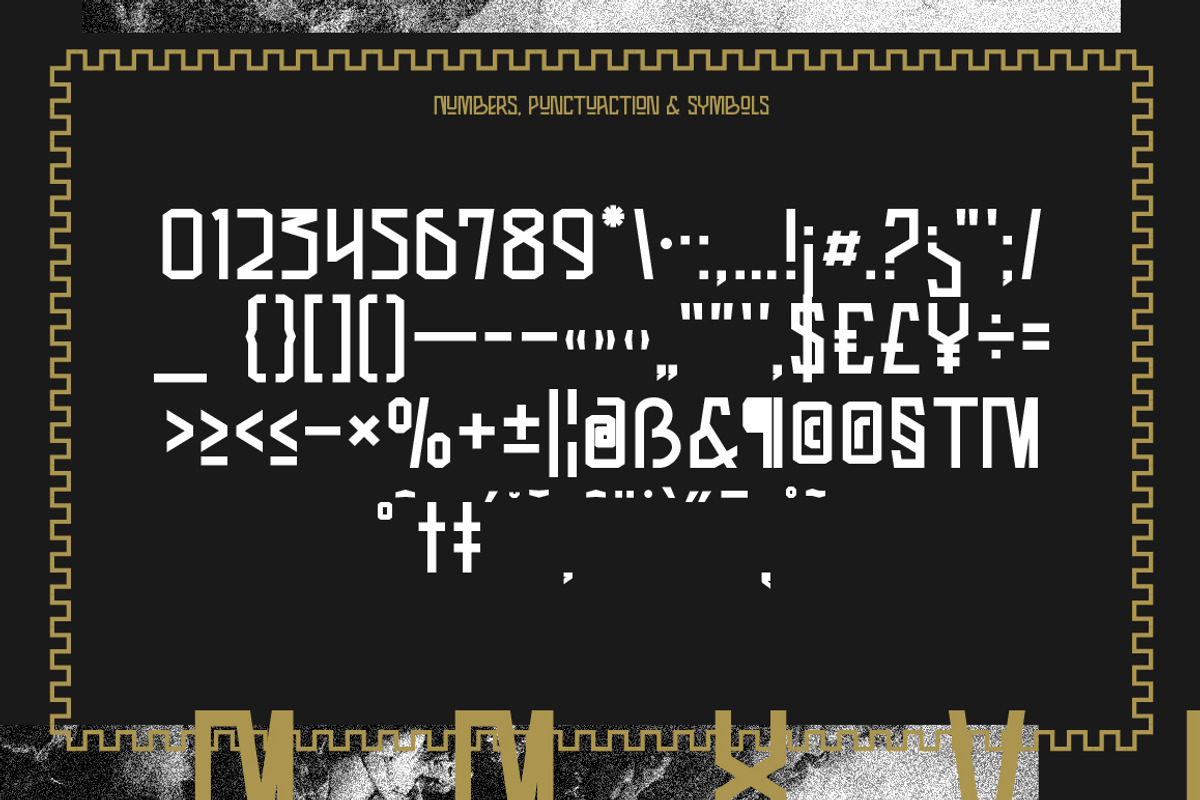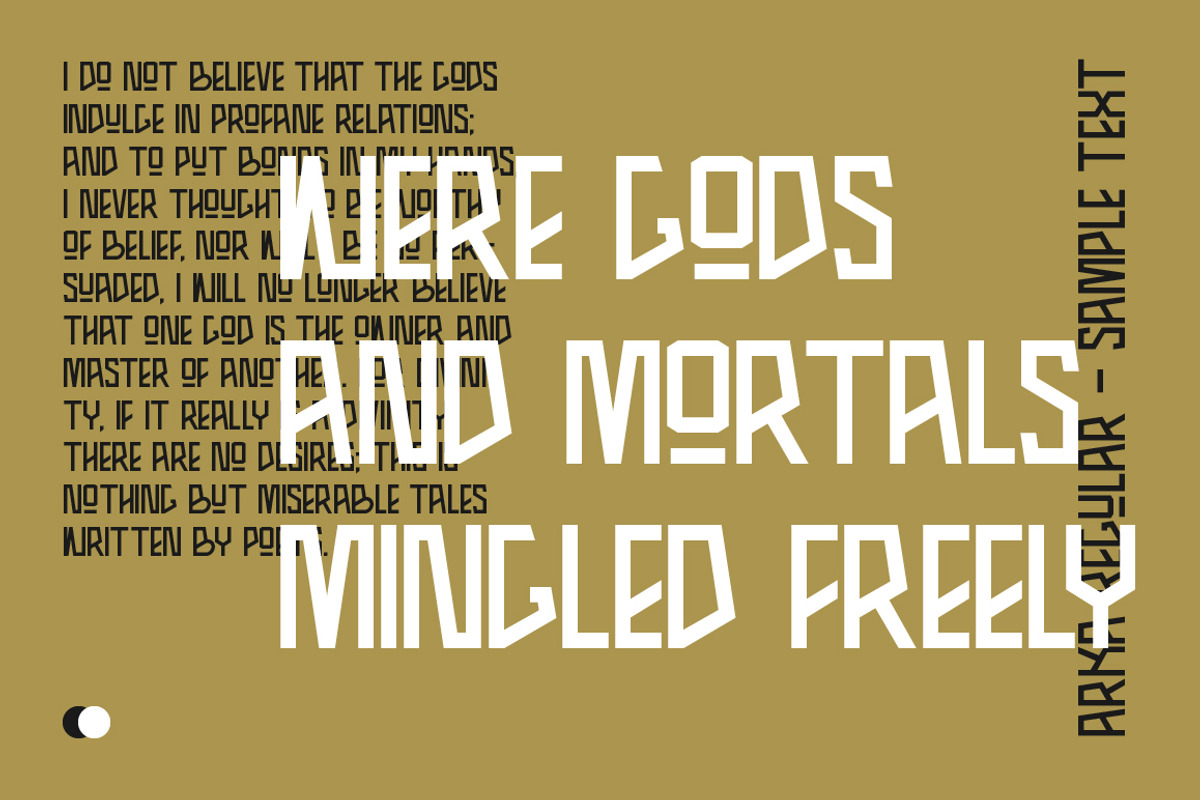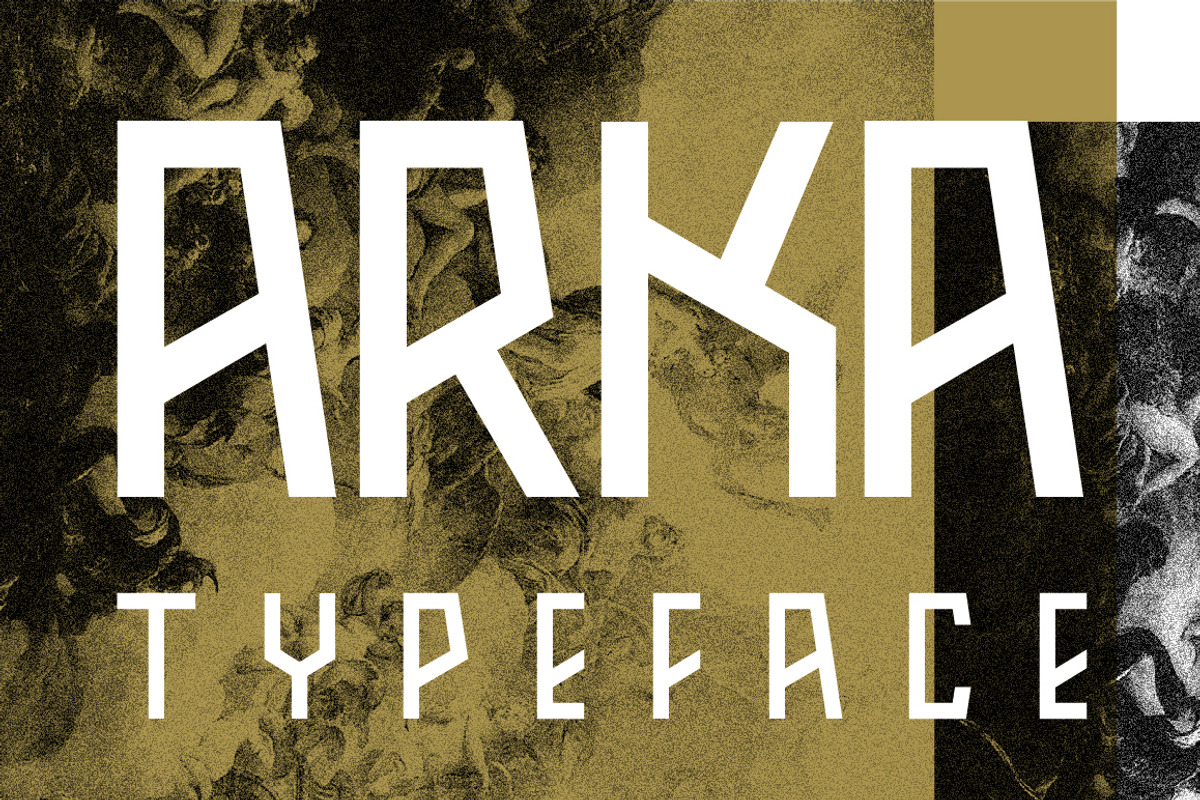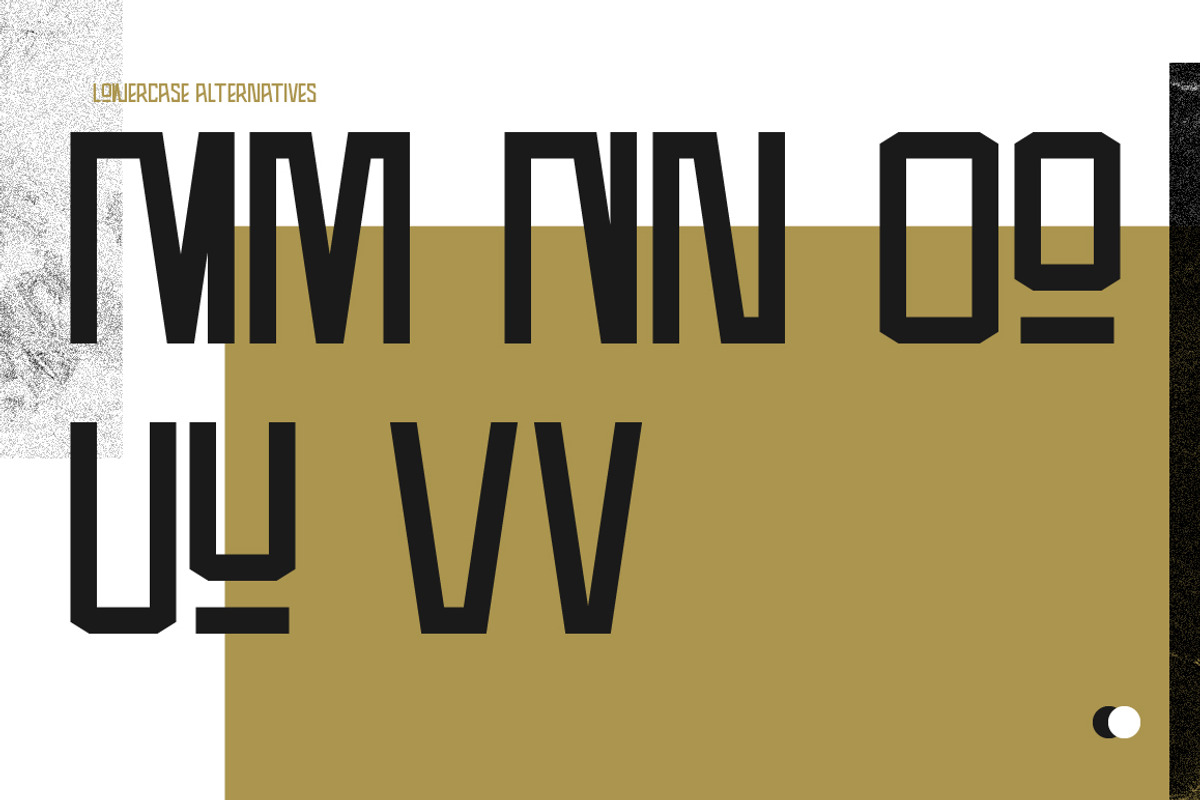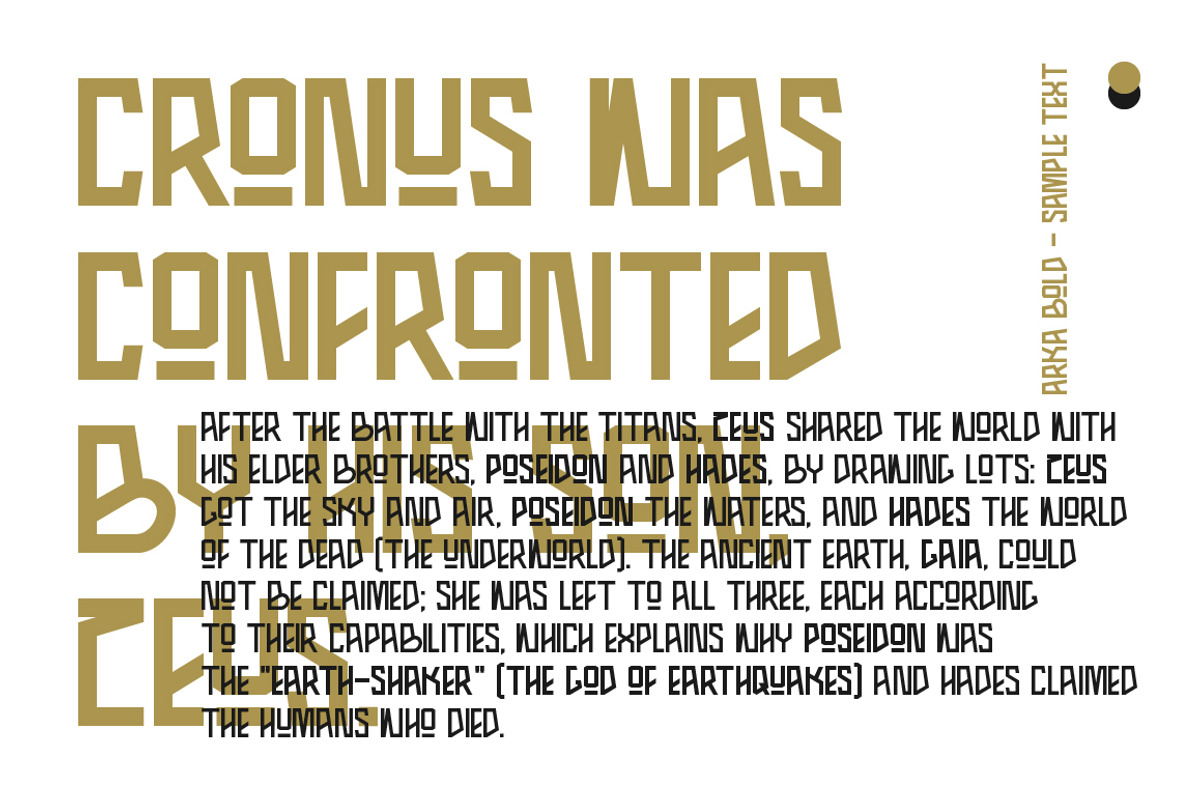
Arka Typeface
Arka Typeface by Bruno. is a font selected for branding, posters, packaging, typography.
- Arka Regular
- Arka Bold
Why Arka Typeface is worth a look
Arka Typeface by Bruno. fits naturally into Branding, posters, packaging, typography.